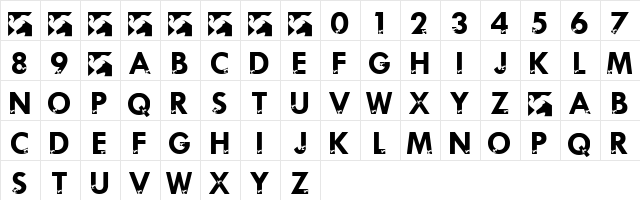
LMS Political Print Regular
Design Context for LMS Political Print Typeface
LMS Political Print is a composed and adaptable typeface that performs quietly and consistently across a wide range of design contexts.
Pro Tip: Pair LMS Political Print with a font of contrasting weight or personality to build a more expressive typographic hierarchy.